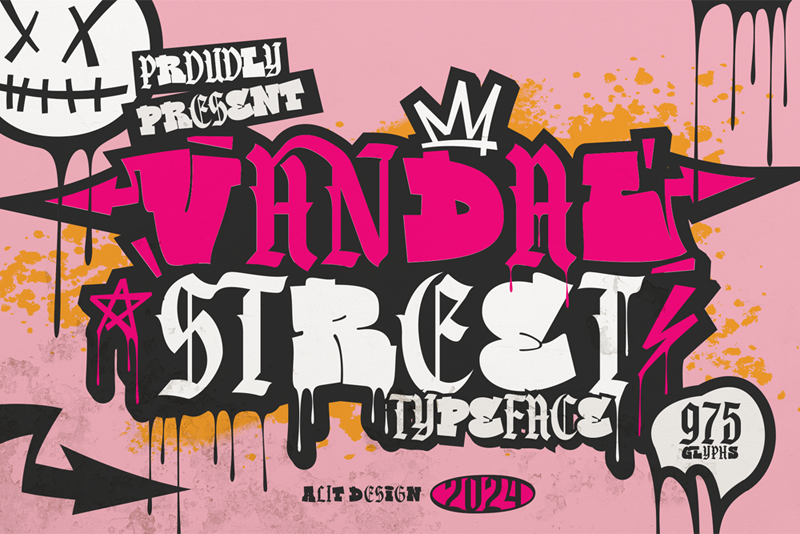
Vandal Street Graffiti Font is a bold and expressive typeface that seamlessly blends the dynamic energy of graffiti with the intricate aesthetics of blackletter. Inspired by the raw urban culture of street art, this font exudes a rebellious spirit and urban authenticity. This is font Demo just for personal use, Not permitted for commercial use. The donation is very appreciated. Please check here for more info about the license: https://alitdesign.net/license/ DOWNLOAD FULL VERSION AND FOR COMMERCIAL USE: https://alitdesign.net/product/vandal-street-graffiti-font/ Creative Market: https://creativemarket.com/alitdesign/92041198-Vandal-Street-Graffiti-Font visit my website for full version and commercial use: https://alitdesign.net/ follow my Instagram to update my portfolio: https://www.instagram.com/alitdesign_studio/ Email : info@alitdesign.net |